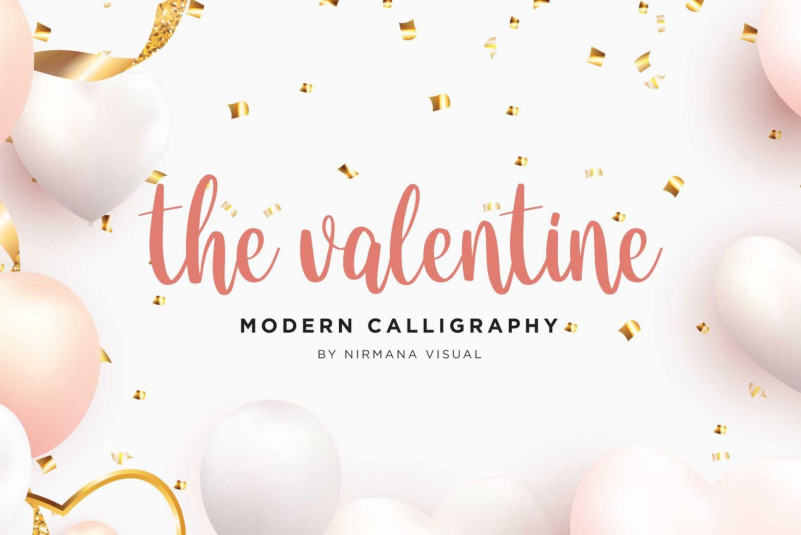
The Valentine Script Font
The Valentine is a Modern Calligraphy font! This font is perfect for quotes, shirt designs, websites, branding, children’s designs, blogs, logos, invitations and more! Features : The Valentine.OTF Multilingual Support Thank you! With Love From Nirmana Visual.